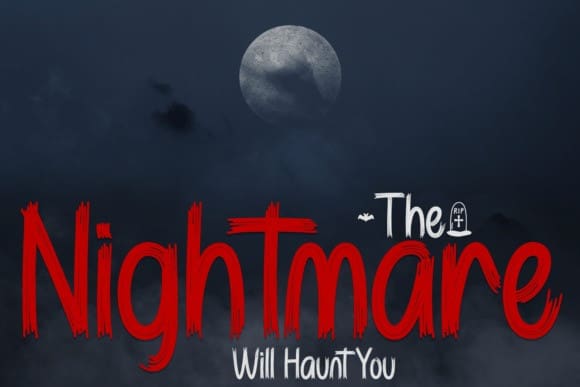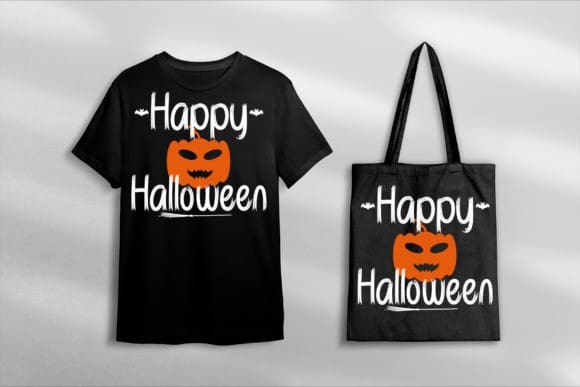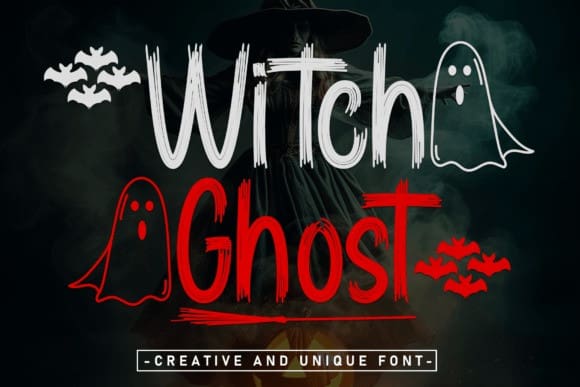
Witch Ghost Font
Witch Ghost Font, a hauntingly beautiful script font that embodies the enchanting spirit of Halloween. With its ethereal curves and mystical strokes, this font casts a spell of mesmerizing charm. Perfect for spooky designs, ghostly invitations, and magical projects, WitchGhost Font adds a touch of spectral elegance to your creations.